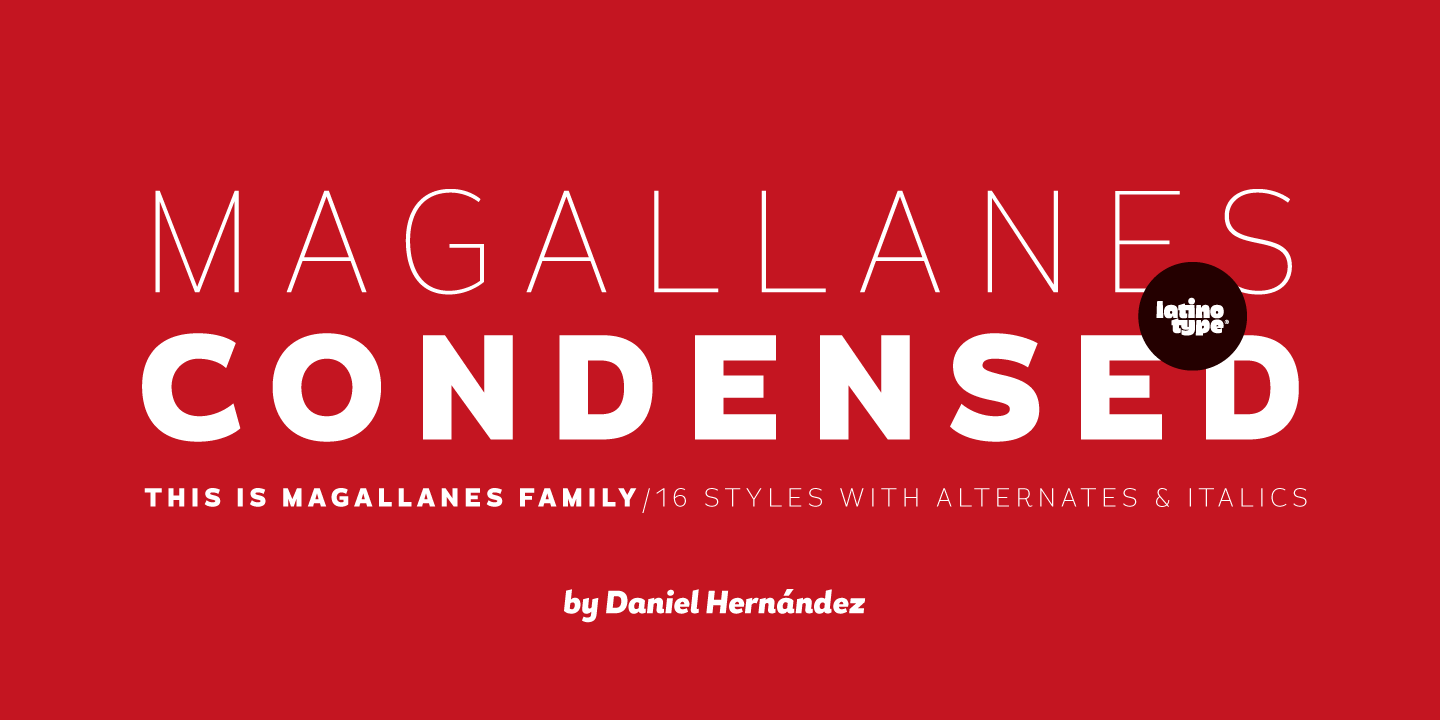
Magallanes Condensed Font excels in maritime design applications including sailing company branding, ocean exploration presentations, nautical equipment packaging, maritime museum exhibits, seafaring adventure campaigns, coastal tourism materials, yacht club signage, marine conservation publications, naval heritage projects, and expedition documentary graphics. This adventurous typeface brings oceanic authority to exploration-focused design projects.
What makes Magallanes Condensed Font truly exciting is its perfect capture of maritime exploration heritage with condensed letterforms that suggest ship masts and nautical precision while maintaining excellent readability. The font features tall, narrow proportions with strong vertical emphasis and seafaring character that evoke the courage and determination of historic ocean explorers. Its adventurous spirit and maritime authenticity make it ideal for brands celebrating exploration, discovery, and audiences fascinated by oceanic adventures, maritime history, and the timeless call of the sea.
The Magallanes Condensed Font family typically includes multiple weights such as Light, Regular, Medium, and Bold with potential Italic variations that maintain its nautical character. These comprehensive options provide designers with complete maritime styling while preserving the font's distinctive condensed elegance and exploratory presentation across various adventure applications and oceanic contexts.
Whether you're developing maritime branding, creating exploration campaigns, or designing nautical marketing materials, Magallanes Condensed Font Free Download provides the oceanic authority and adventurous sophistication that sea-focused projects require. Its exceptional maritime character and exploratory appeal make it invaluable for designers working with sailing organizations, maritime companies, and adventure-focused brands requiring typography that celebrates ocean exploration, nautical heritage, and the enduring human spirit of discovery that drives maritime adventures across endless seas.